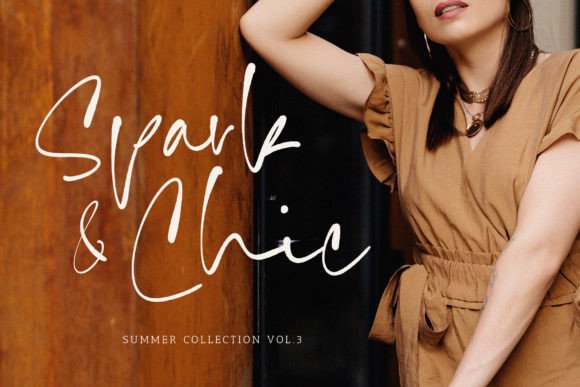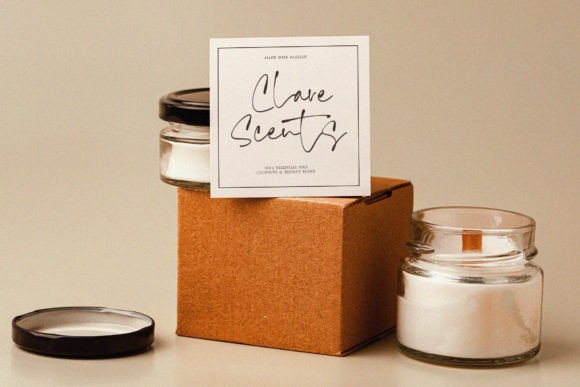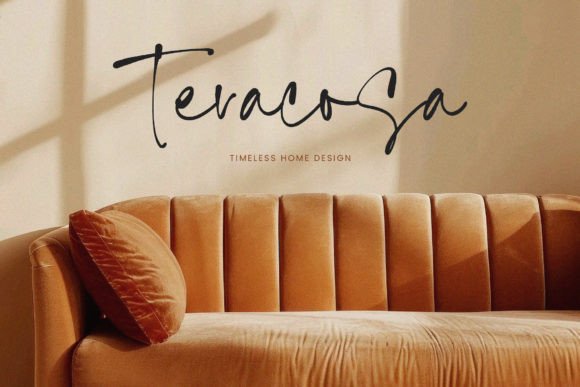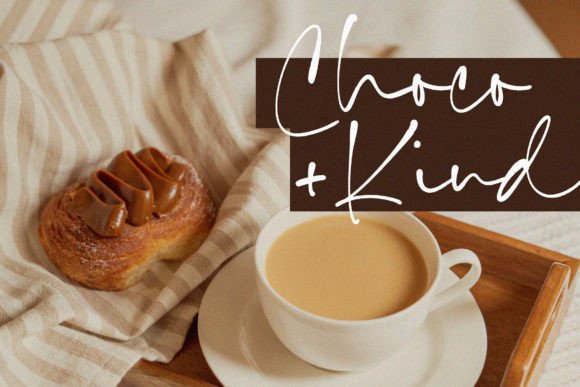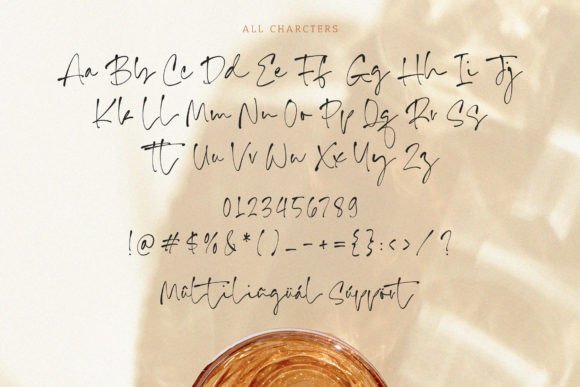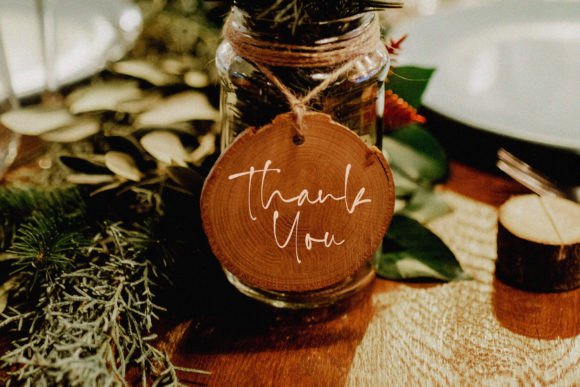
The Daniel Finley Font: A Charming Casual Handwritten Script
As designers, we’ve all been there – stuck on a project, searching for that perfect font to bring our vision to life. I recall a particularly frustrating experience when a client asked for a “warm and inviting” feel for their brand identity. After hours of scouring font libraries, I stumbled upon Daniel Finley – a casual handwritten script font that effortlessly blends elegance with approachability. In this article, I’ll share my experience with Daniel Finley, its features, and how to make the most of it in your designs.
A Personal Review: What I Love and What to Watch Out For
- ✅ Fluid strokes and relaxed style create a warm, inviting feel
- ✅ Perfect for invitations, greeting cards, or brand identities
- ✅ Playful yet refined character adds authenticity and creativity to designs
- ✅ Easy to read and understand, even at smaller font sizes
Small Quirks and Limitations 🤔
- ⚠️ Limited use of uppercase letters, which can make it less suitable for headings
- ⚠️ Some users may find the font too casual for formal designs
- Experiment with OpenType features, such as stylistic alternates, to add visual interest
The Story Behind Daniel Finley
Daniel Finley was designed with the intention of creating a font that blends elegance with approachability. The designer aimed to craft a font that would be perfect for designs that require a warm, inviting feel. With its fluid strokes and relaxed style, Daniel Finley brings a touch of authenticity and creativity to any design project.
Q: What type of designs is Daniel Finley best suited for?
A: Daniel Finley is perfect for designs that require a warm, inviting feel, such as invitations, greeting cards, or brand identities.
Q: Is Daniel Finley suitable for body text?
A: While Daniel Finley is easy to read, it’s best suited for headings and titles. For body text, a clearer font may be more suitable.